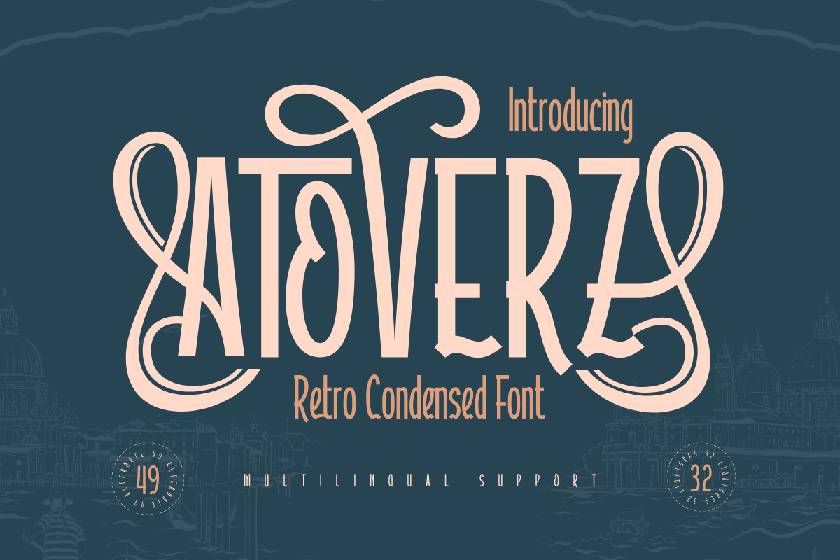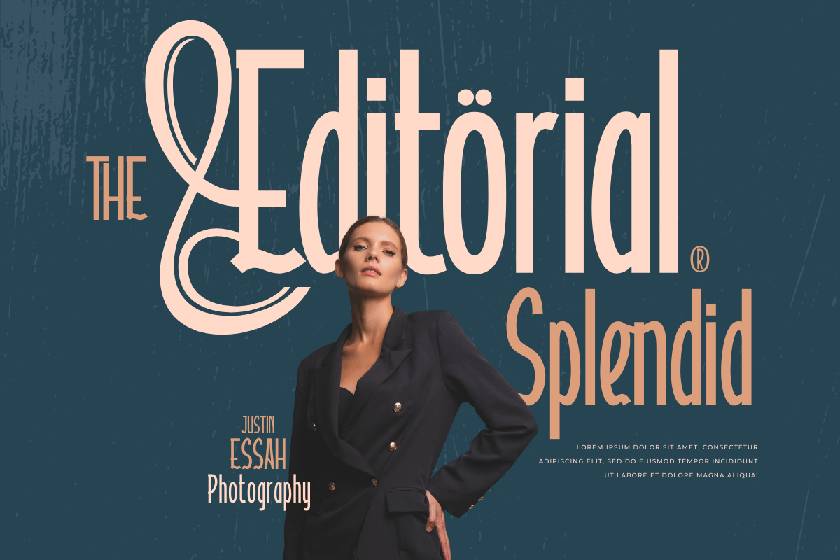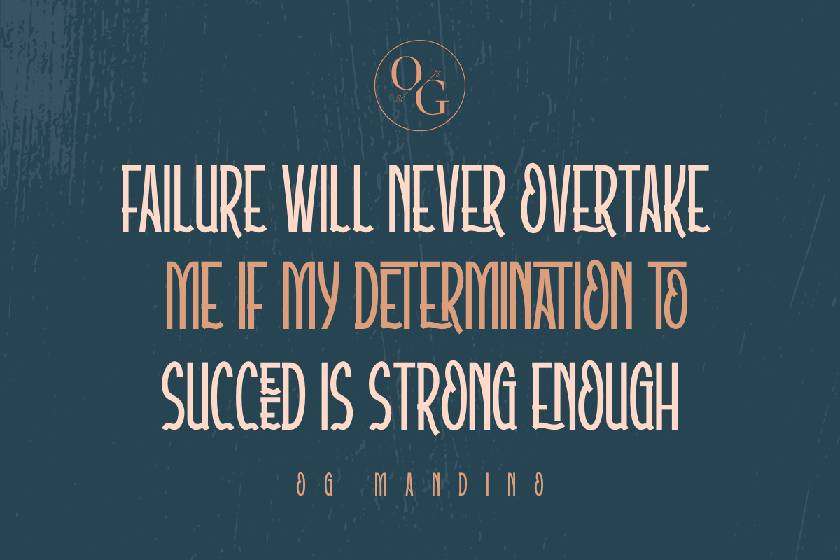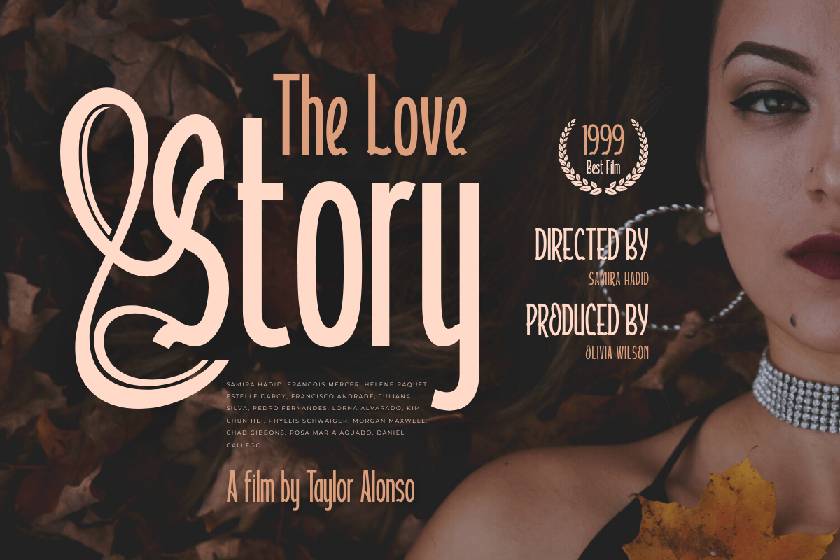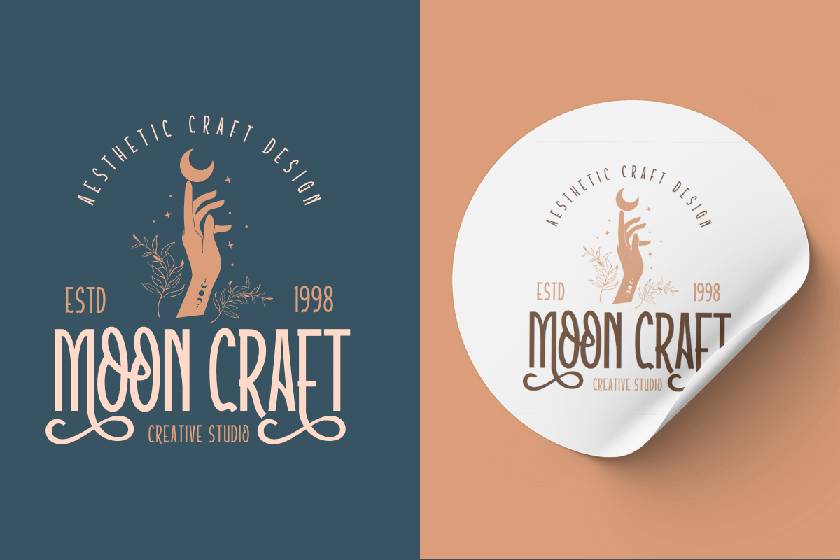
Atoverz is a narrow, condensed sans serif font with a tall x-height and unique, quirky letterforms that combine sharp angles with subtle curves, giving it a playful yet modern vibe. Its high contrast strokes and distinctive shapes, such as the stylized Q tail and unusual ampersand, make it eye-catching and ideal for creative headlines, branding, and display uses where personality and distinctiveness are key. This font works well for projects that want to stand out with a contemporary and slightly whimsical style.
Atoverz Font
About Atoverz Font
| Font family | Atoverz Font |
| Designer | Ojak |